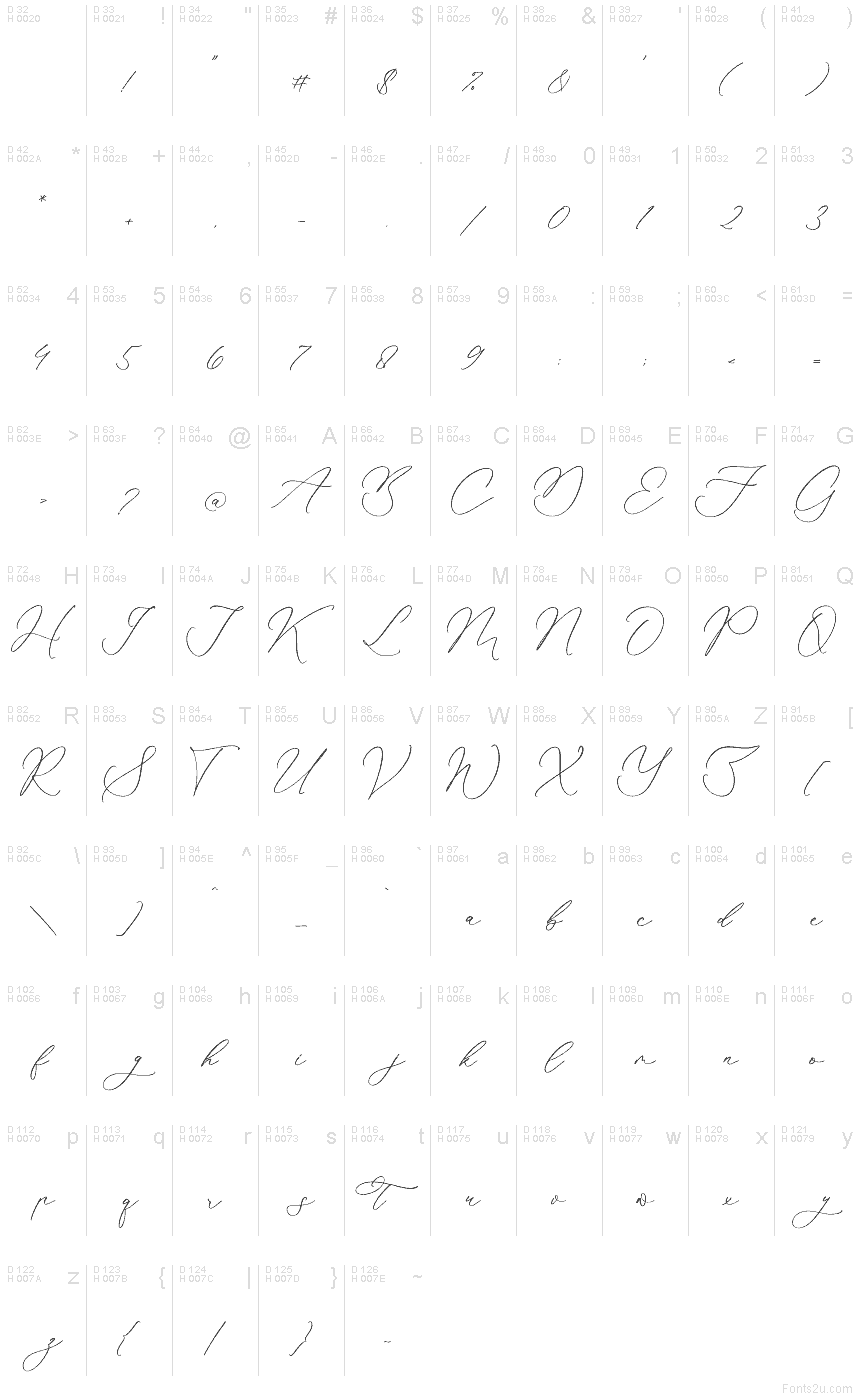
Lucimaretta
Lucimaretta font by Integritype Studio is a light handwritten font that captures an elegant, flowing, and sophisticated feel. With its ornate and intricate details, it possesses a truly decorative side which is why such font can easily give the needed character to your written projects.
Such beautifully designed writing conveniently suits books and e-book covers, birthday invitations, greetings cards, posters promoting concert events of jazz players or solo artists, logo designs for clothing brands as well as beauty centers.